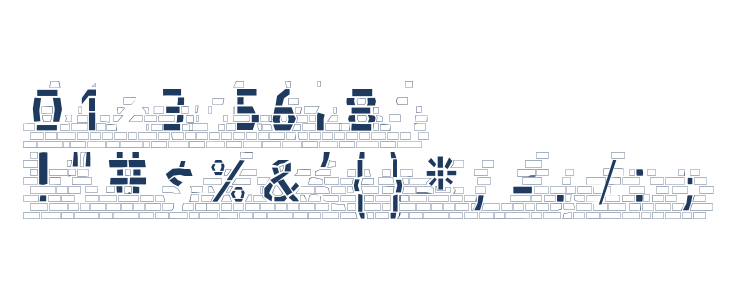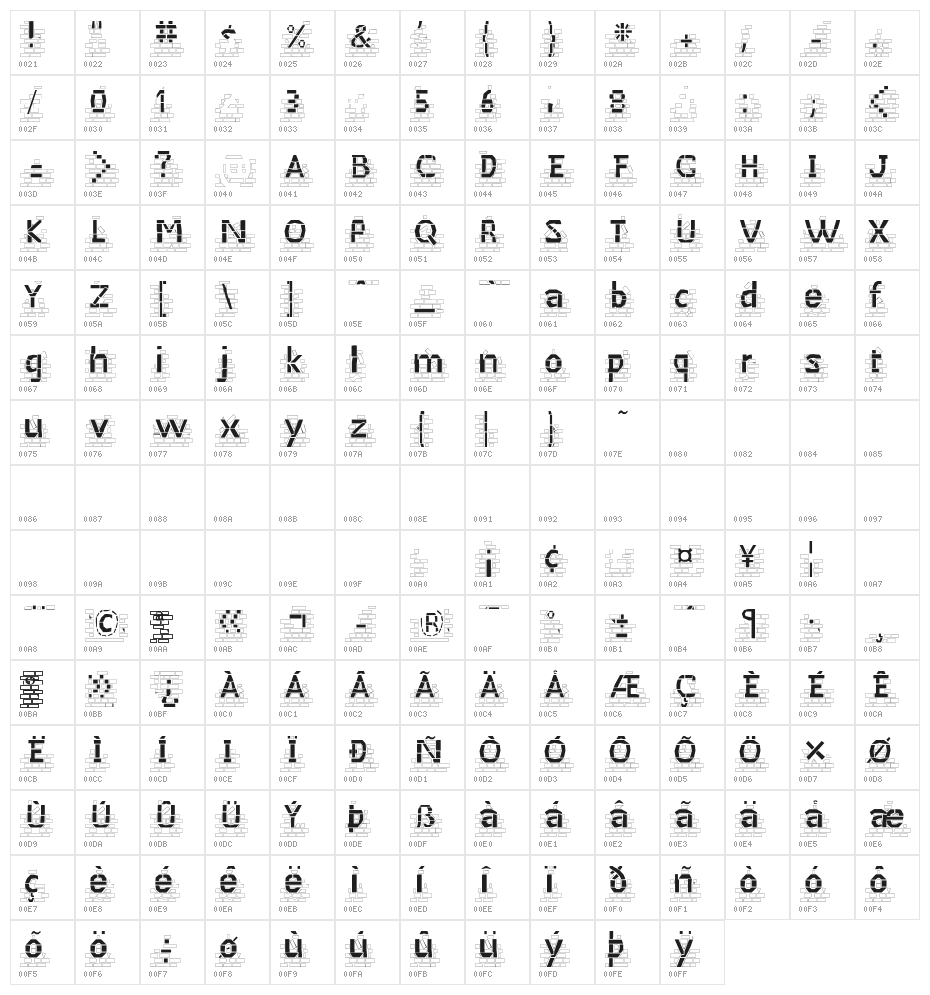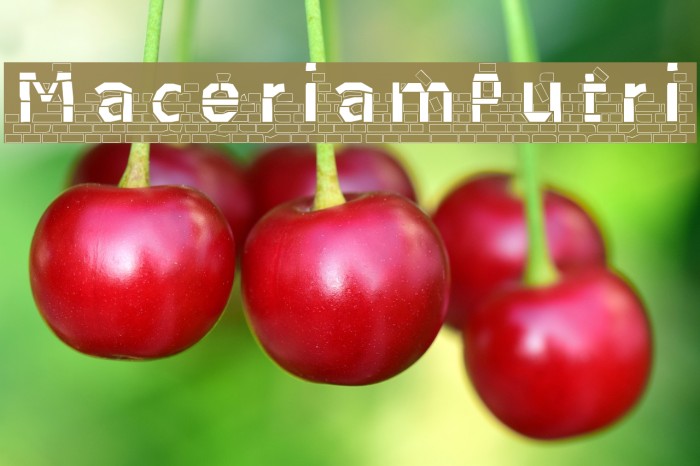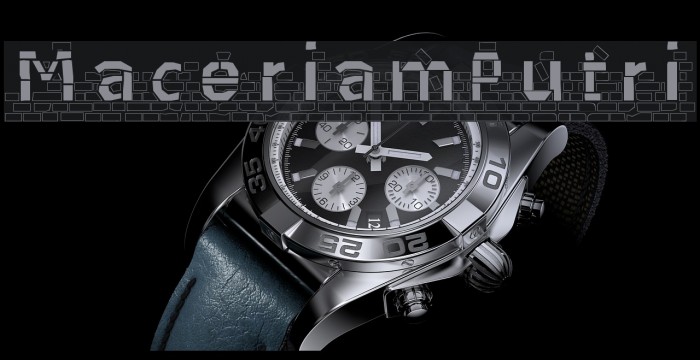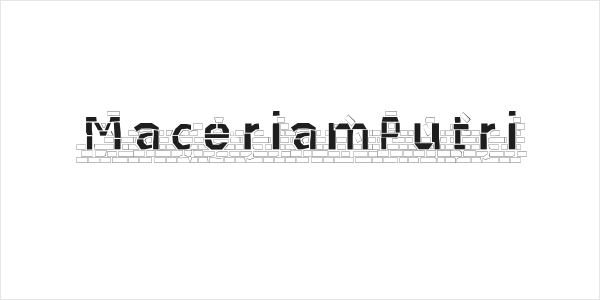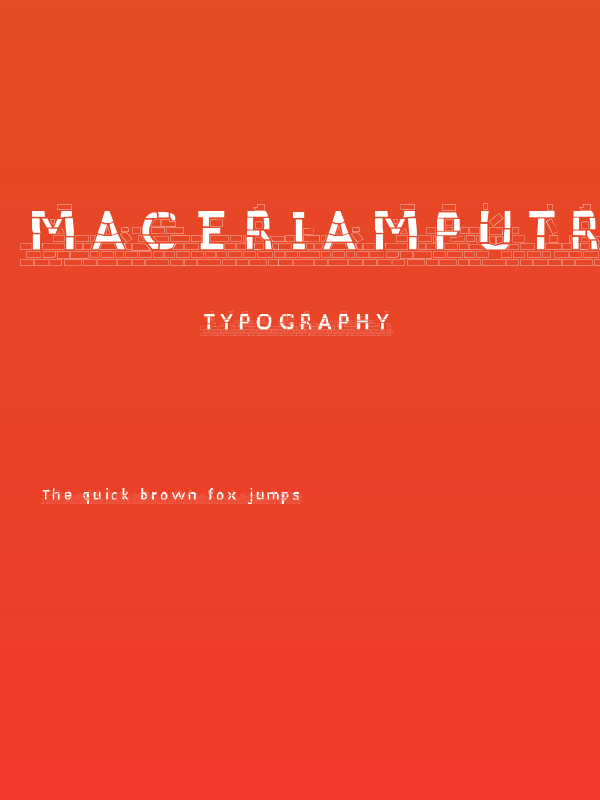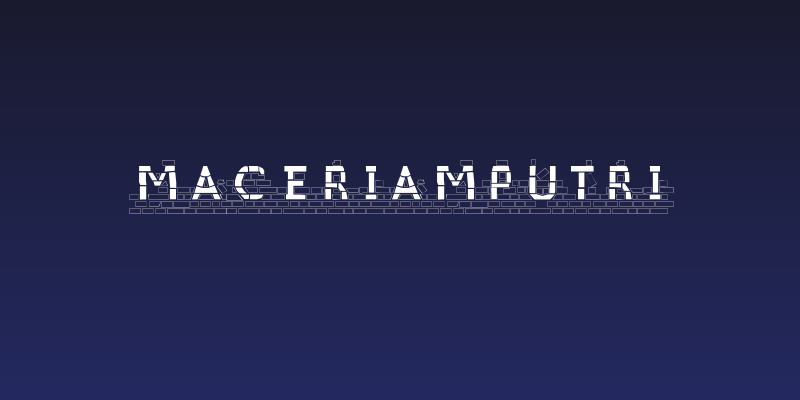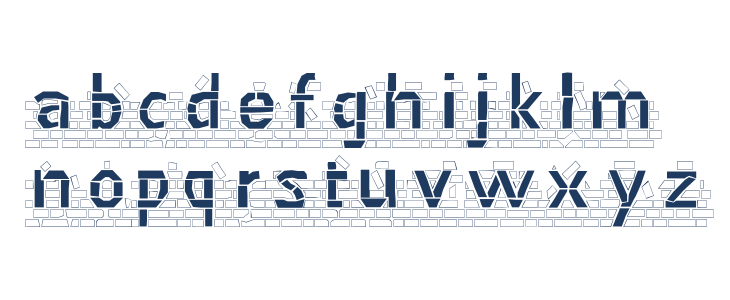
MaceriamPutri Font
MaceriamPutri Description
This font features a unique and creative design that combines elements of a brick wall pattern with bold, geometric letterforms. Each character is constructed with a distinct outline that mimics the appearance of bricks, giving it a textured and dimensional look. The uppercase and lowercase letters maintain a consistent style, with angular edges and a modern aesthetic. The numerals and special characters follow the same design principles, ensuring a cohesive appearance across all glyphs. This font stands out with its decorative and artistic qualities, making it suitable for projects that require a bold and eye-catching typeface.